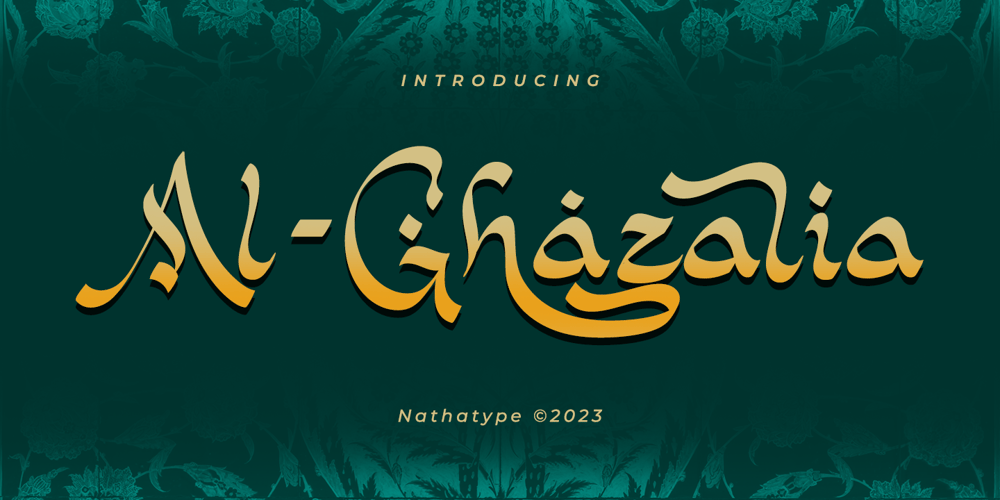
Al Ghazalia
Al Ghazalia font
Al Ghazalia Font Family was designed by Donis Miftahudin and published by Nathatype. Al Ghazalia contains 1 styles and family package options. Al-Ghazalia is an exquisite font meticulously crafted to capture the essence of Arabic calligraphy. Al-Ghazalia is not just a font; it’s a bridge between tradition and modernity. The characters in Al-Ghazalia embrace the rich tradition of Arabic lettering, featuring graceful, curvaceous lines and a stunning high-contrast design. Each letter is thoughtfully shaped, exhibiting the intricate beauty of Arabic calligraphy while adding a contemporary touch. In addition, you can also enjoy the features here.Features: Alternates Swashes Multilingual Supports PUA Encoded Numerals and Punctuations Al-Ghazalia fits in headlines, logos, posters, flyers, branding materials, greeting cards, print media, editorial layouts, and many more designs. Find out more ways to use this font by taking a look at the font preview.Thanks for purchasing our fonts. Hopefully, you have a great time using our font. Feel free to contact us anytime for further information or when you have trouble with the font. Thanks a lot and happy designing.